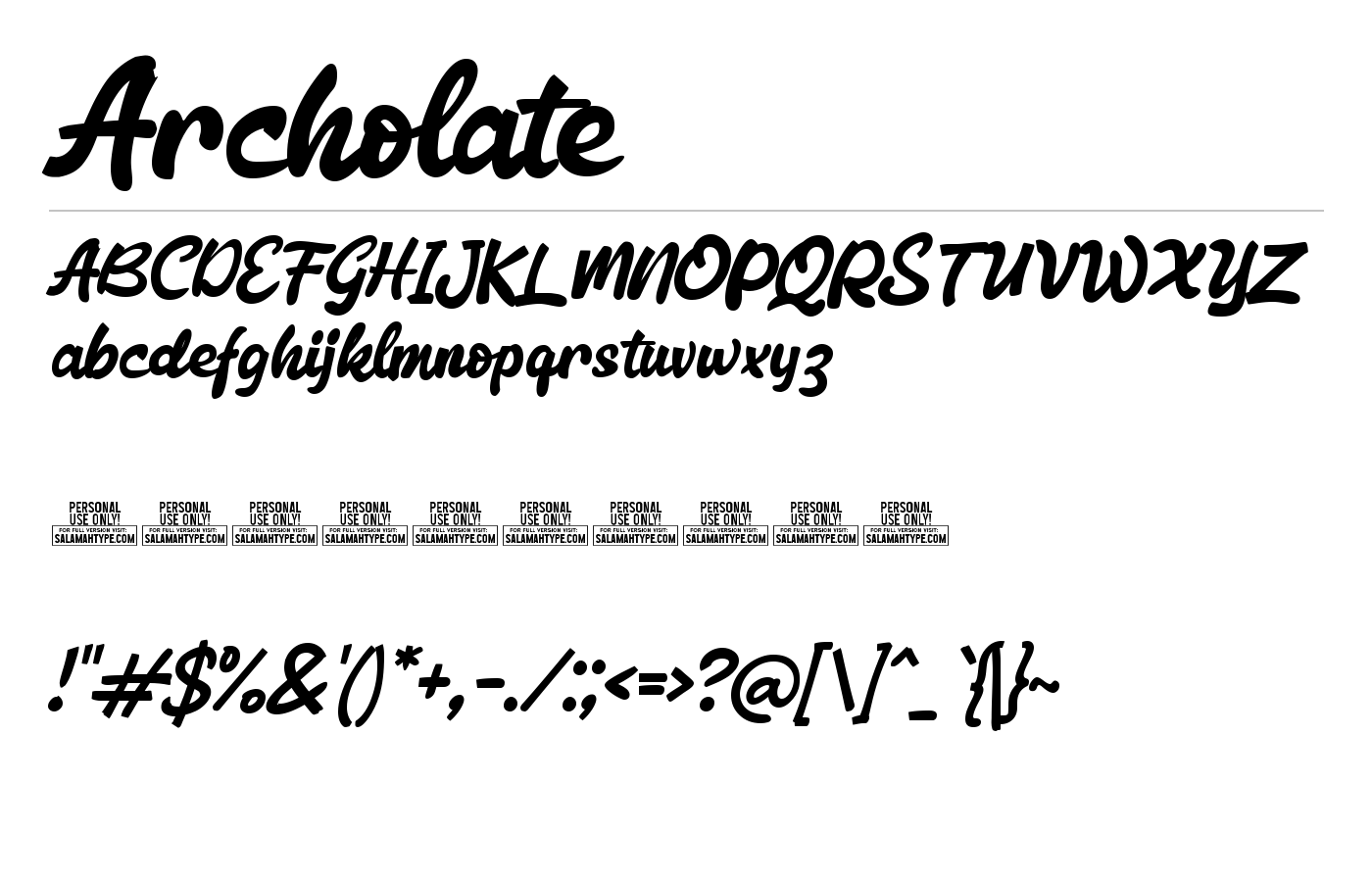
Archolate is a bold and lively script font with a smooth, handwritten feel that blends casual charm with strong personality. Its rounded, connected letterforms and moderately high x-height make it both readable and expressive, perfect for adding a friendly yet confident touch to logos, headlines, and creative branding projects. This font works well where a modern, approachable vibe is desired, especially in packaging, posters, and informal editorial use.
Archolate Font
About Archolate Font
| Font family | Archolate Font |